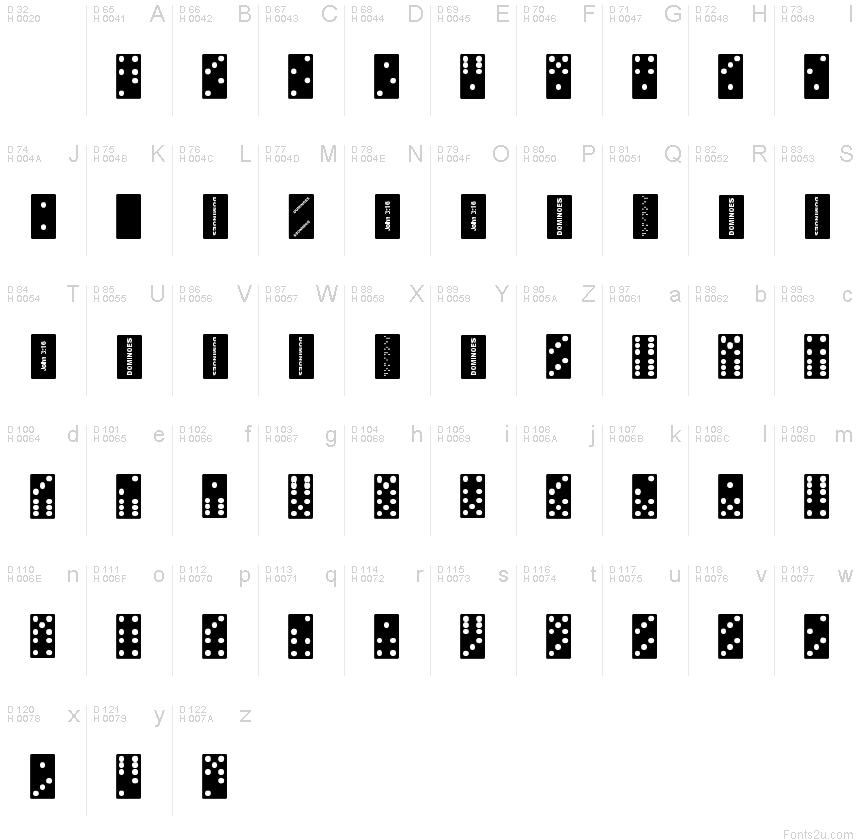
FE Dominoes from Font Environment is a free game-themed dingbat font centered on upright domino tiles, with rounded pips, tall rectangular silhouettes, softly rounded corners, generous gaps between marks, and occasional labeled pieces. The symbols vary in pip count and internal arrangement, so the collection has the practical look of a real domino set rather than a row of repeated decorative icons.
For tabletop packaging and game instructions, these tile-shaped symbols can label rules, scores, and sections, and they also suit event posters or classroom activity sheets built around counting and matching. They can double as illustrations within a game diagram.